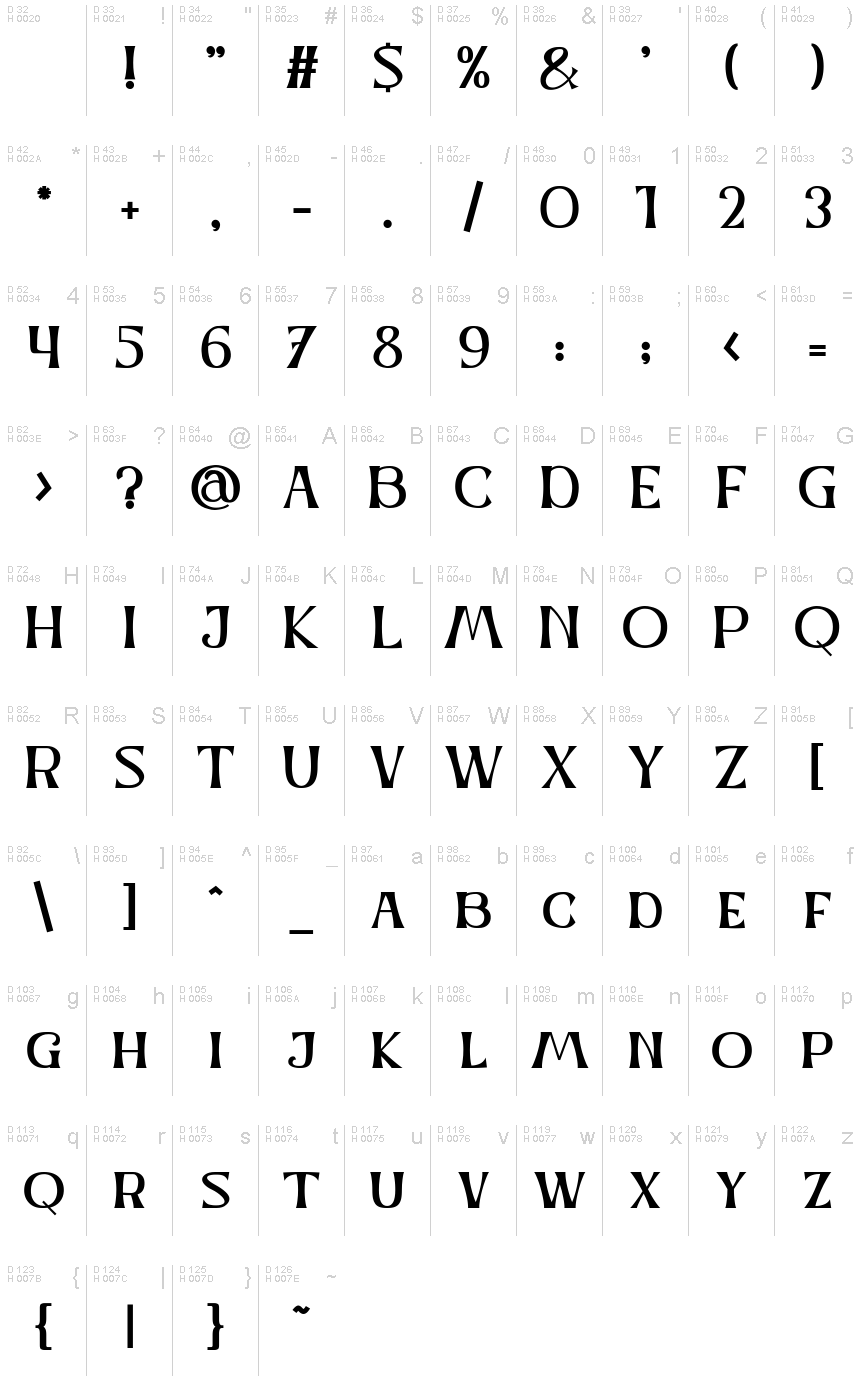
Werd
Werd by PutraCetol Studio is a captivating display font that exudes retro charm. Its bold and striking letterforms are designed to catch the eye and make a statement. The unique curvature and playful, exaggerated lines give it an unmistakable vintage appeal that stands out in any design setting.
Perfect for headlines, posters, branding projects, or any creative endeavor that demands attention, Werd combines nostalgia with a contemporary twist. This font's distinct personality and strong visual presence make it an excellent choice for adding character and flair to your typography work. Whether you're working on a logo or a bold advertisement, Werd provides the perfect balance of retro elegance and modern versatility.